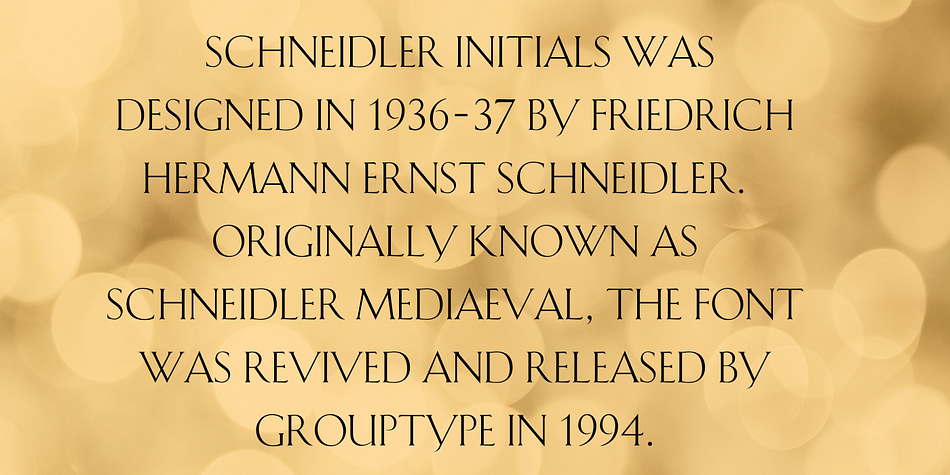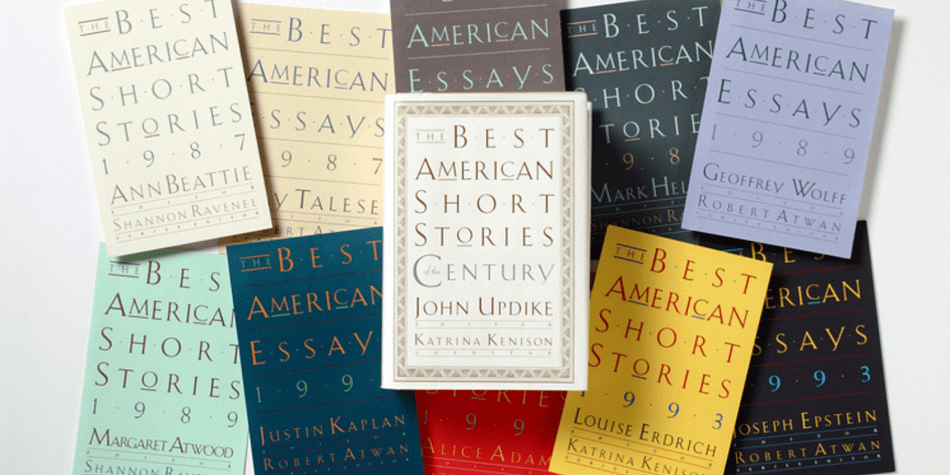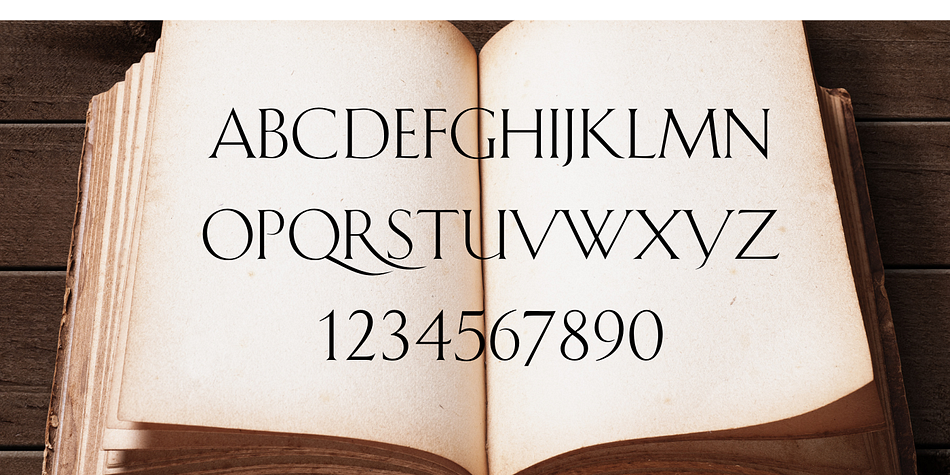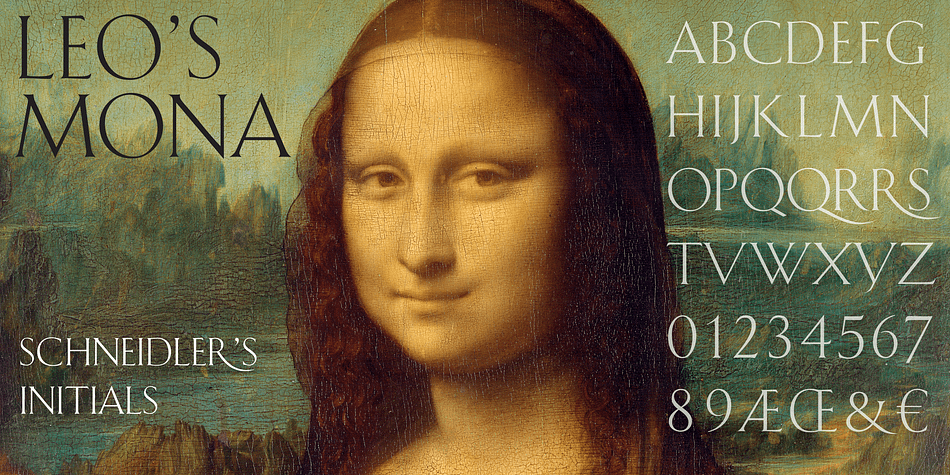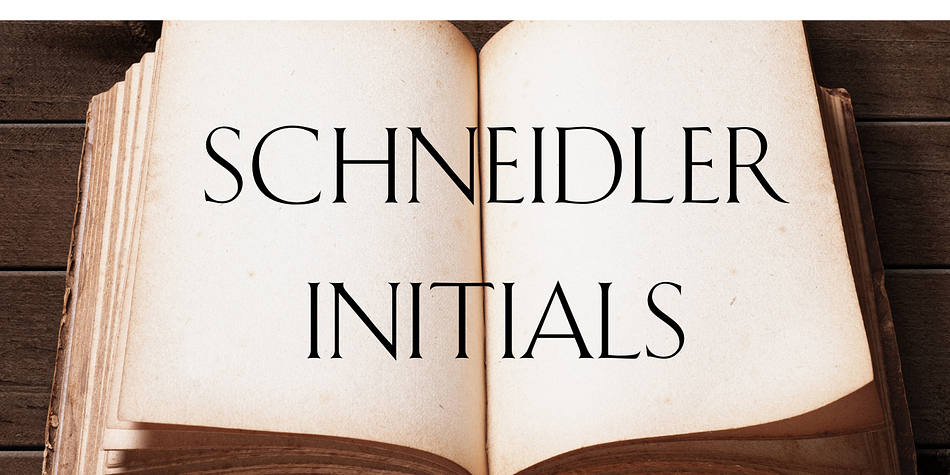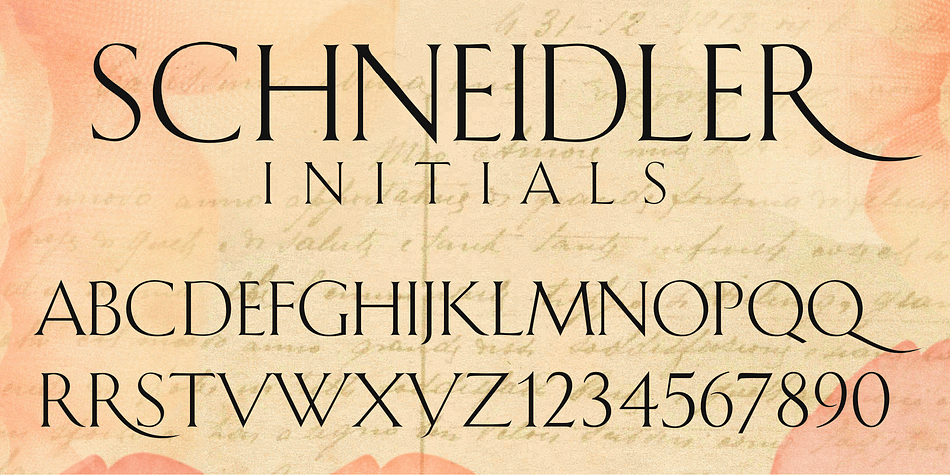
SCHNEIDLER INITIALS
Designed by F.H. Schneider, Schneidler Initials is a display and display serif font published by FontHaus.
Schneidler-Initialen (initials) was designed in 1936-37 by Friedrich Hermann Ernst Schneidler (1882-1956). Originally known as Schneidler Mediaeval, the font was revived and released by GroupType in 1994.
Designer F.H. Ernst Schneider